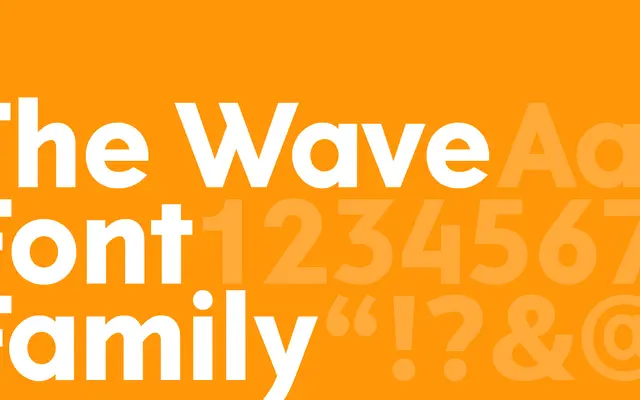
The Wave
A display typeface from Playtype with an editorial, character-driven personality suited to expressive typesetting.
Released by the Copenhagen-based Playtype foundry, The Wave carries a distinctive editorial voice that suits magazine layouts, book covers and campaign work. The page offers little technical detail, but the evocative framing suggests a face built for impact at larger sizes. It sits within Playtype's broader catalogue of expressive, design-led typefaces.
The name and the quoted editorial flavour suggest a distinctive display typeface; insufficient detail to confirm subcategory with precision, but the evocative, character-driven copy points to a display serif or expressive text face.